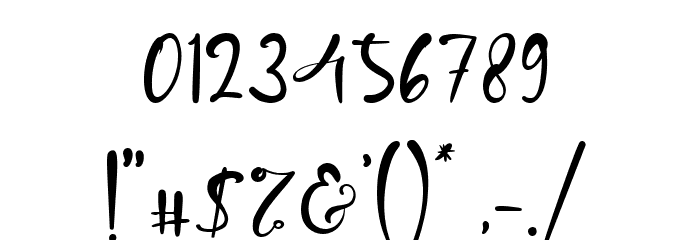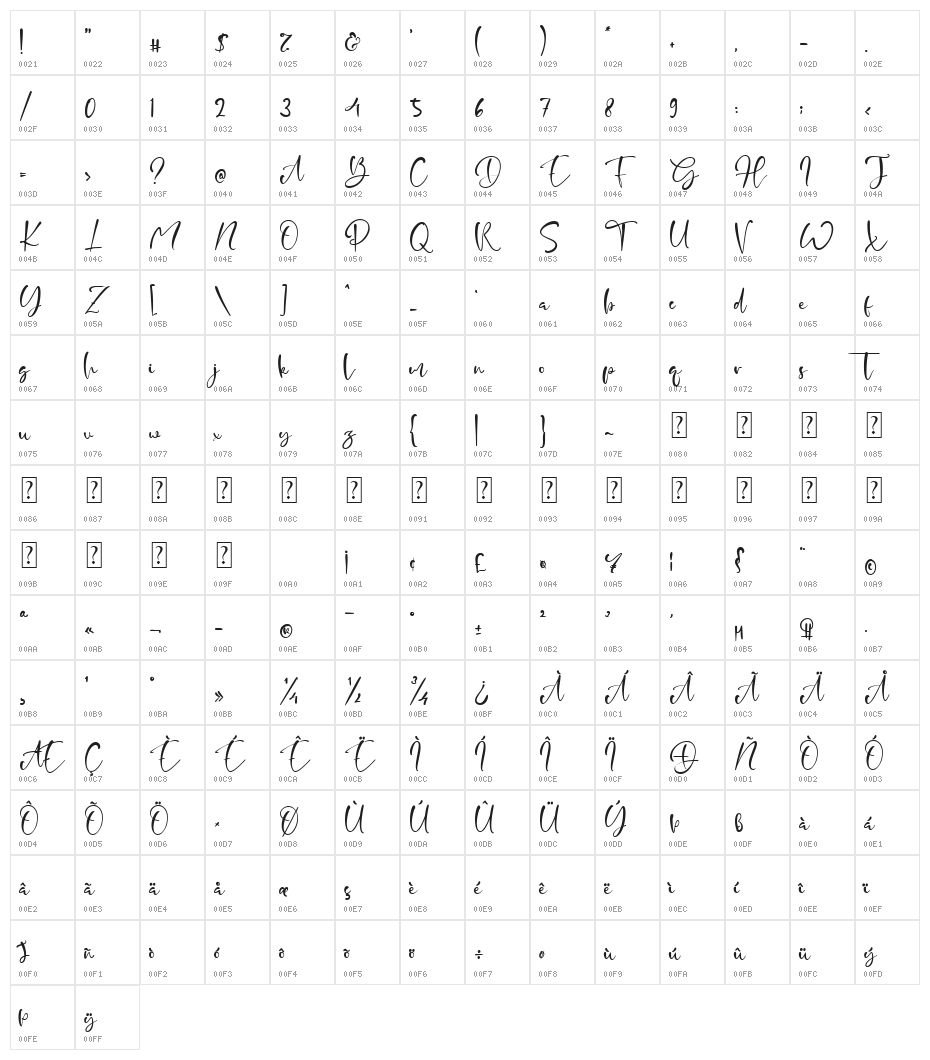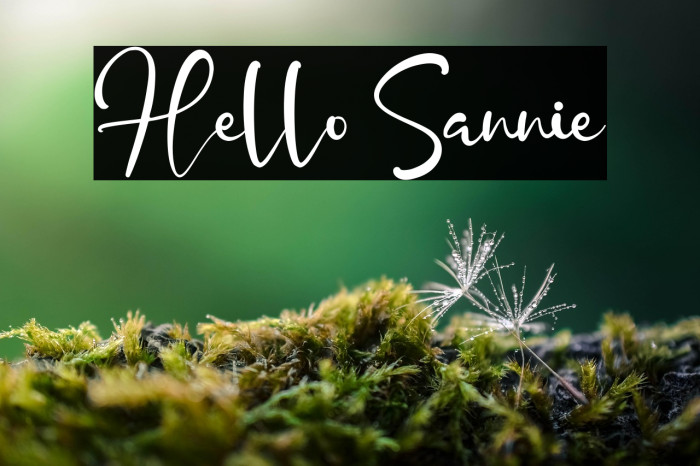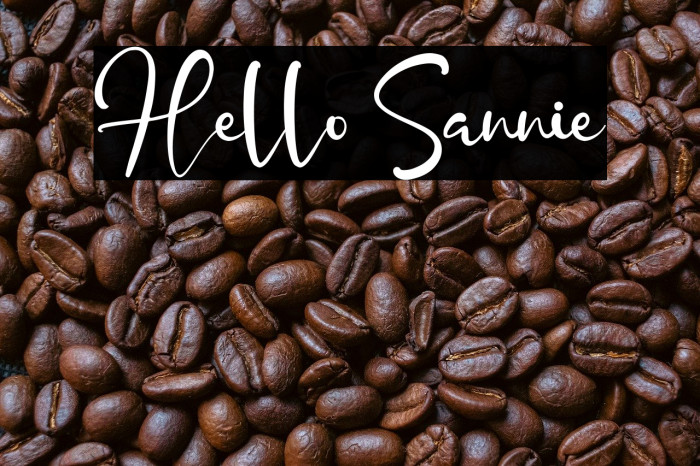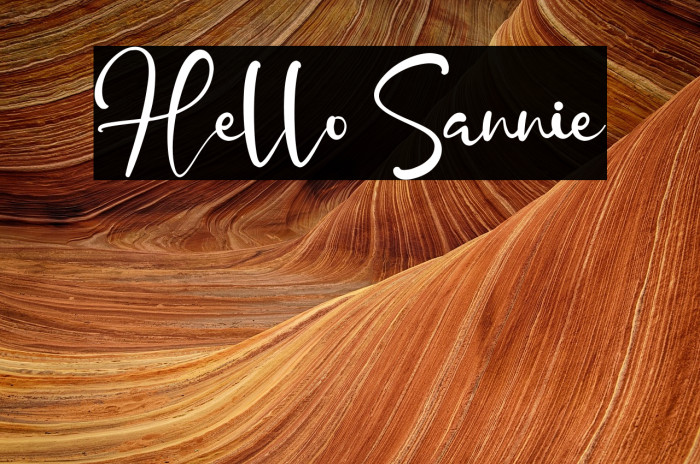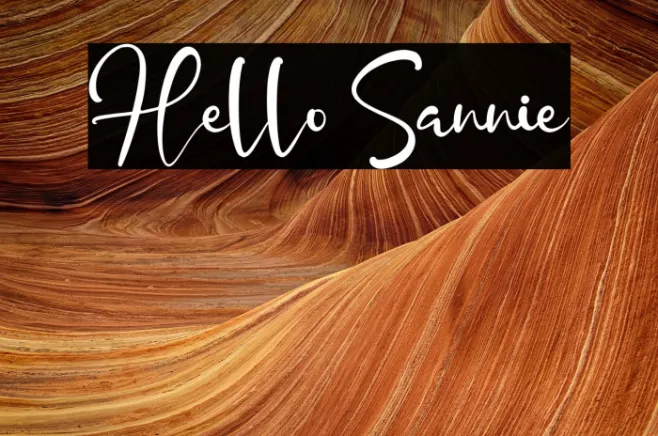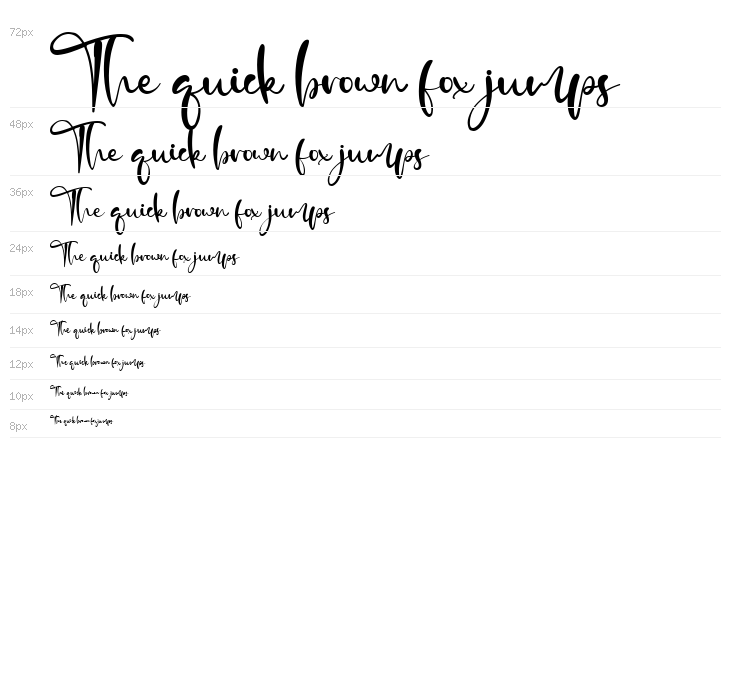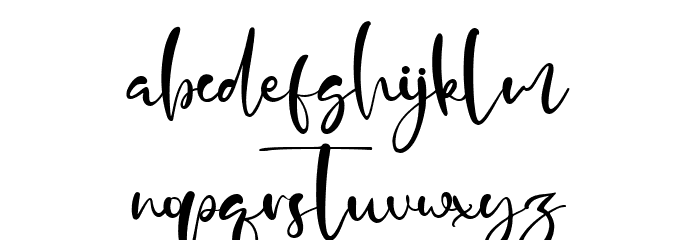
Hello Sannie Font
Hello Sannie Description
This font features a playful and expressive handwritten style, characterized by its flowing and cursive letterforms. The uppercase letters exhibit a dynamic and slightly whimsical appearance, with varying stroke widths that add a sense of movement and energy. The lowercase letters maintain a cohesive look, with smooth curves and loops that enhance the font's casual and friendly demeanor. Numerals are crafted with the same lively touch, ensuring consistency across all characters. Special characters and punctuation are thoughtfully designed to complement the overall aesthetic, making this font versatile for various creative applications.